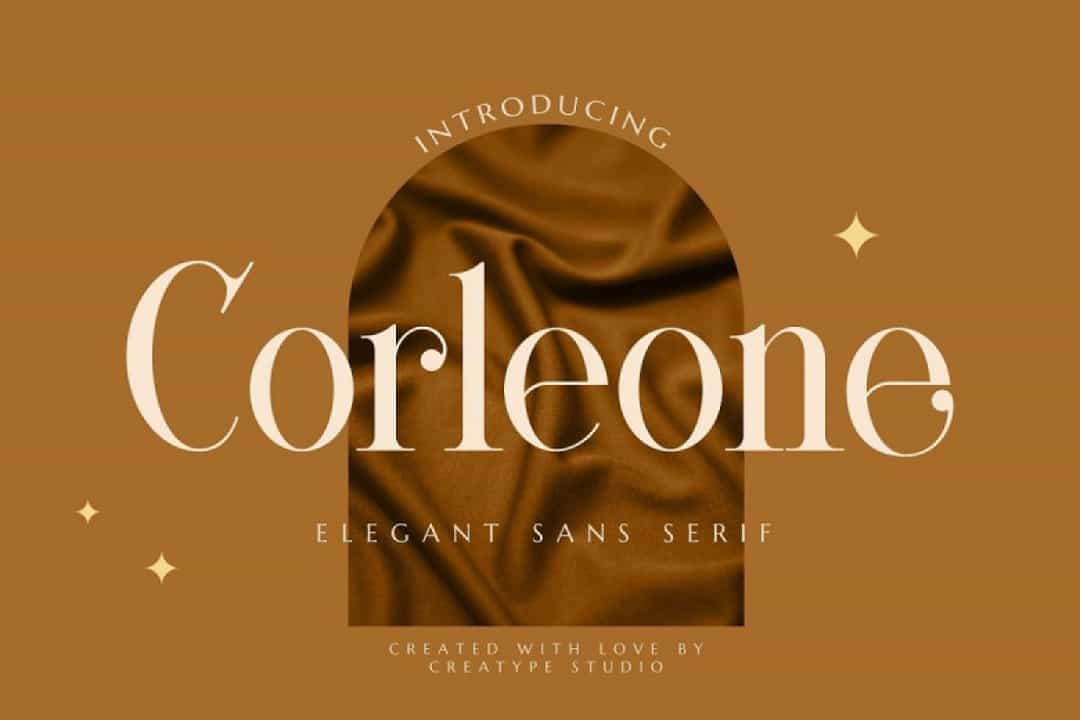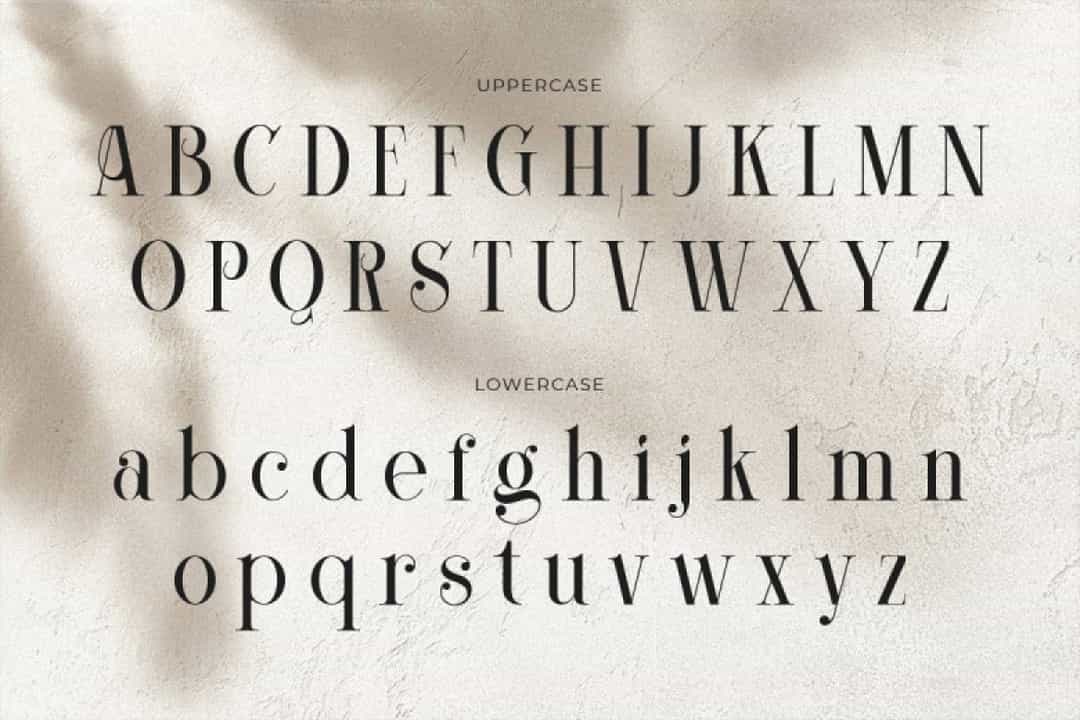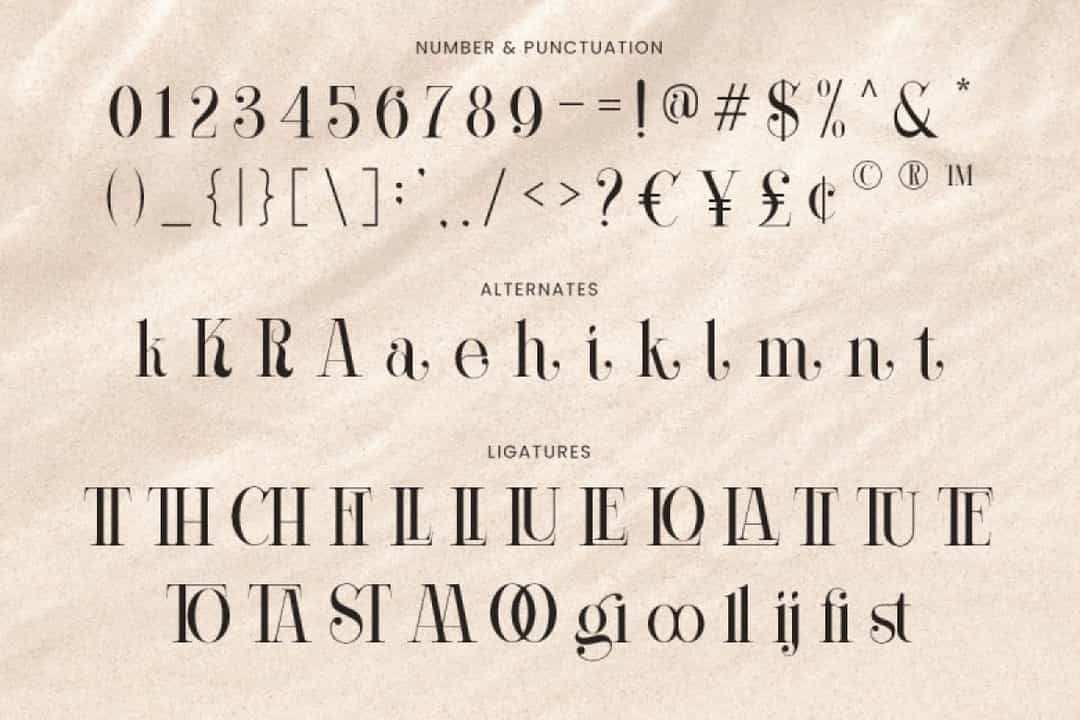
Corleone Serif Font is an elegant font characterized by timeless beauty that infuses every word with timeless beauty, creating a sophisticated typeface which communicates subtly yet powerfully. Perfect for logos, branding projects and wedding designs as well as advertisements, social media posts packaging for products designs labels photo watermark invitations stationery etc requiring professional handwriting expertise and handwritten watermark invitations Corleone makes an excellent addition to your portfolio!